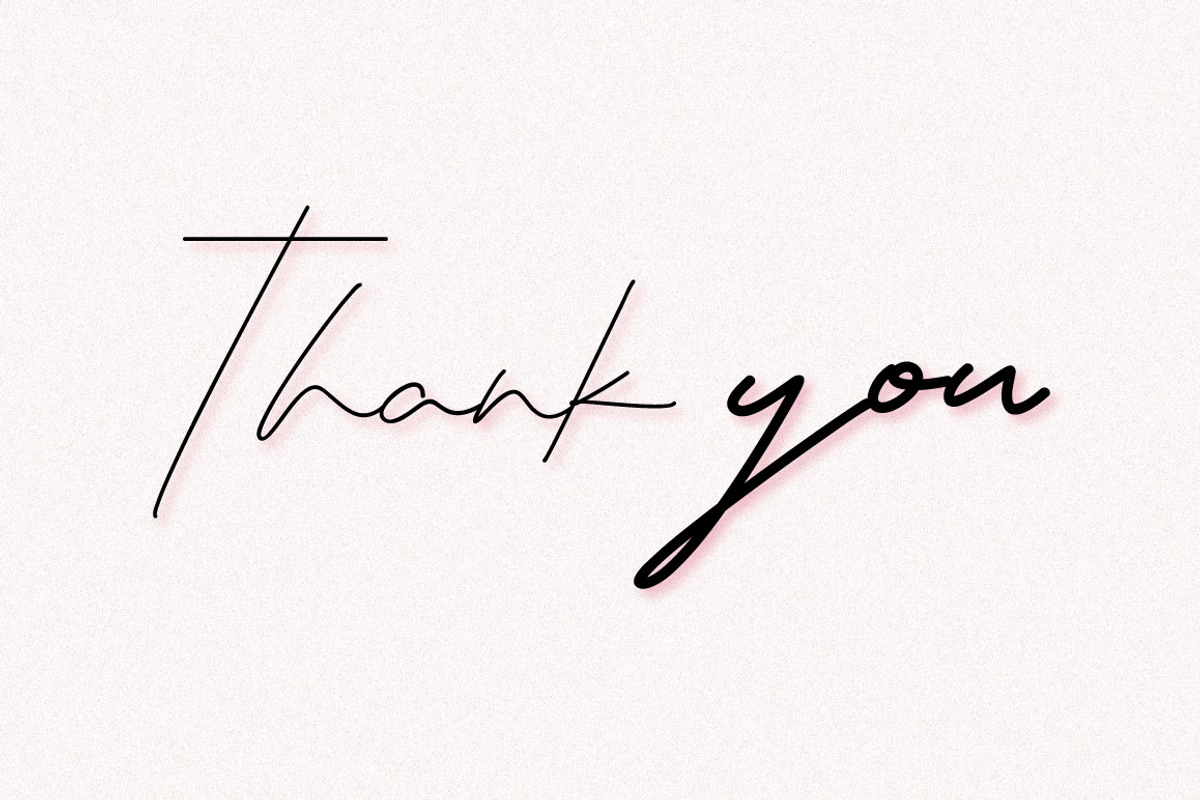
Seraphina Script (Bold&Regular)
BEHIND THE NAME : SERAPHINA
Feminine form of the Late Latin name Seraphinus, derived from the biblical word seraphim which was Hebrew in origin and meant "fiery ones". The seraphim were an order of angels, described by Isaiah in the Bible as having six wings each. This was the name of a 13th-century Italian saint who made clothes for the poor. As an English name, it has never been common.
Seraphina has a full set of uppercase and lowercase letters, multilingual symbols, numerals, punctuation. This font has ligatures for several lowercase characters (double-letters which flow more naturally). It's come in a bold version too.